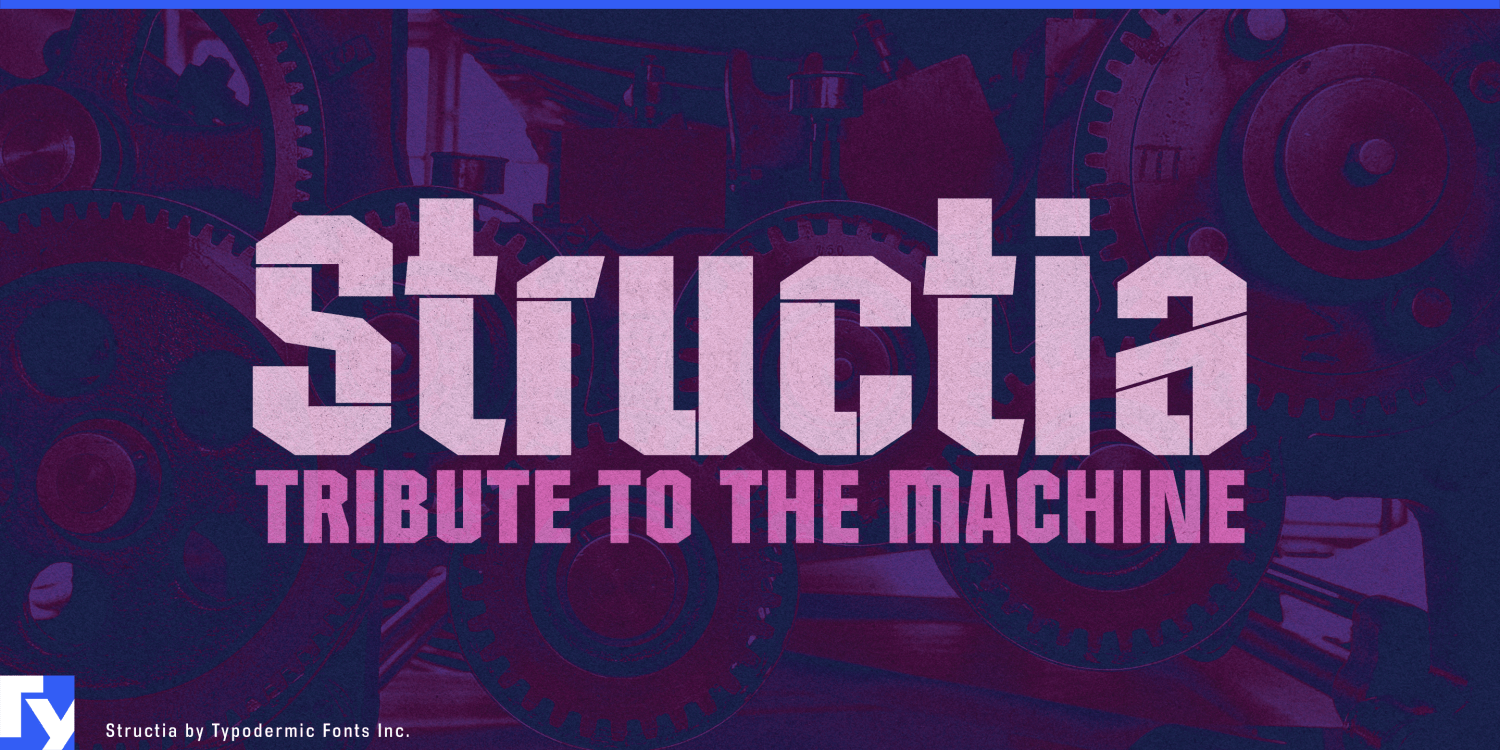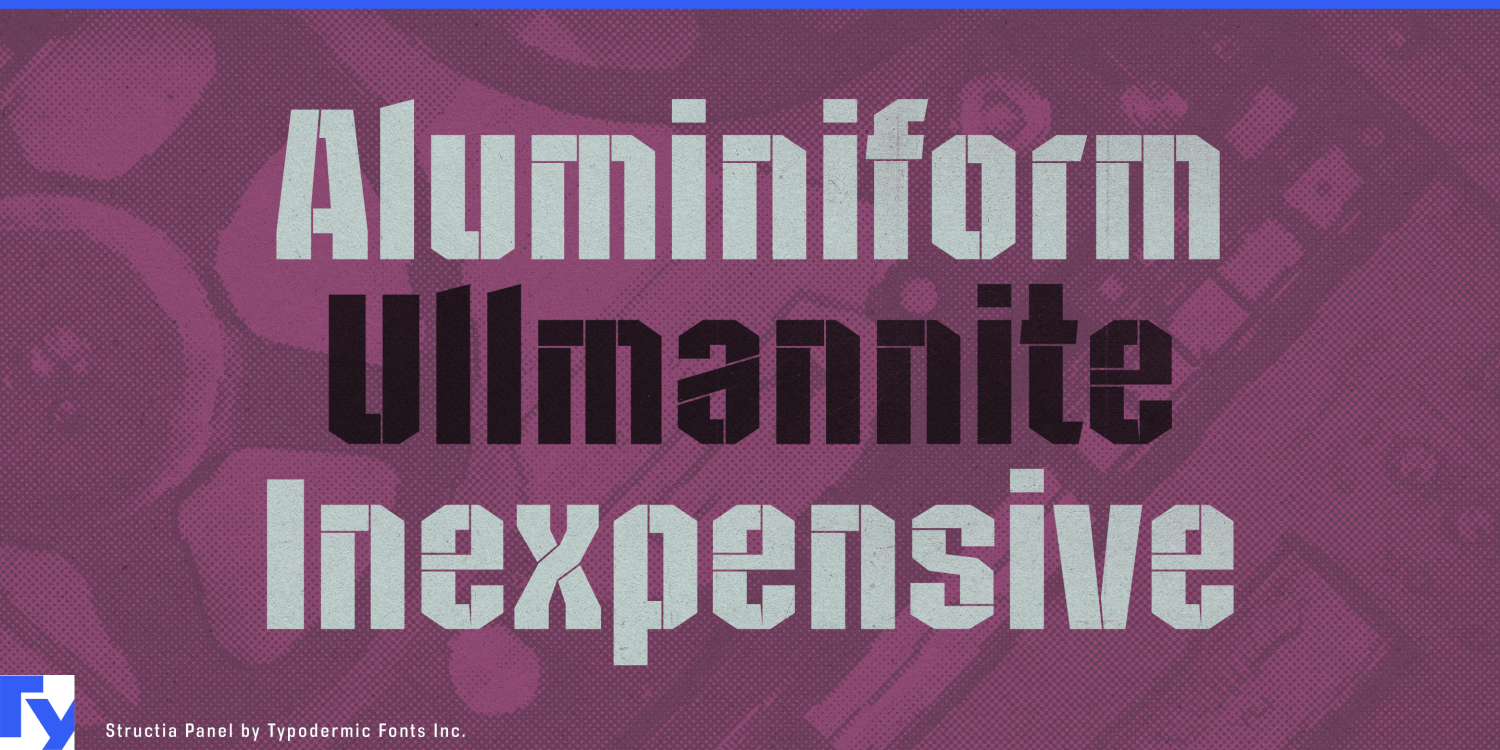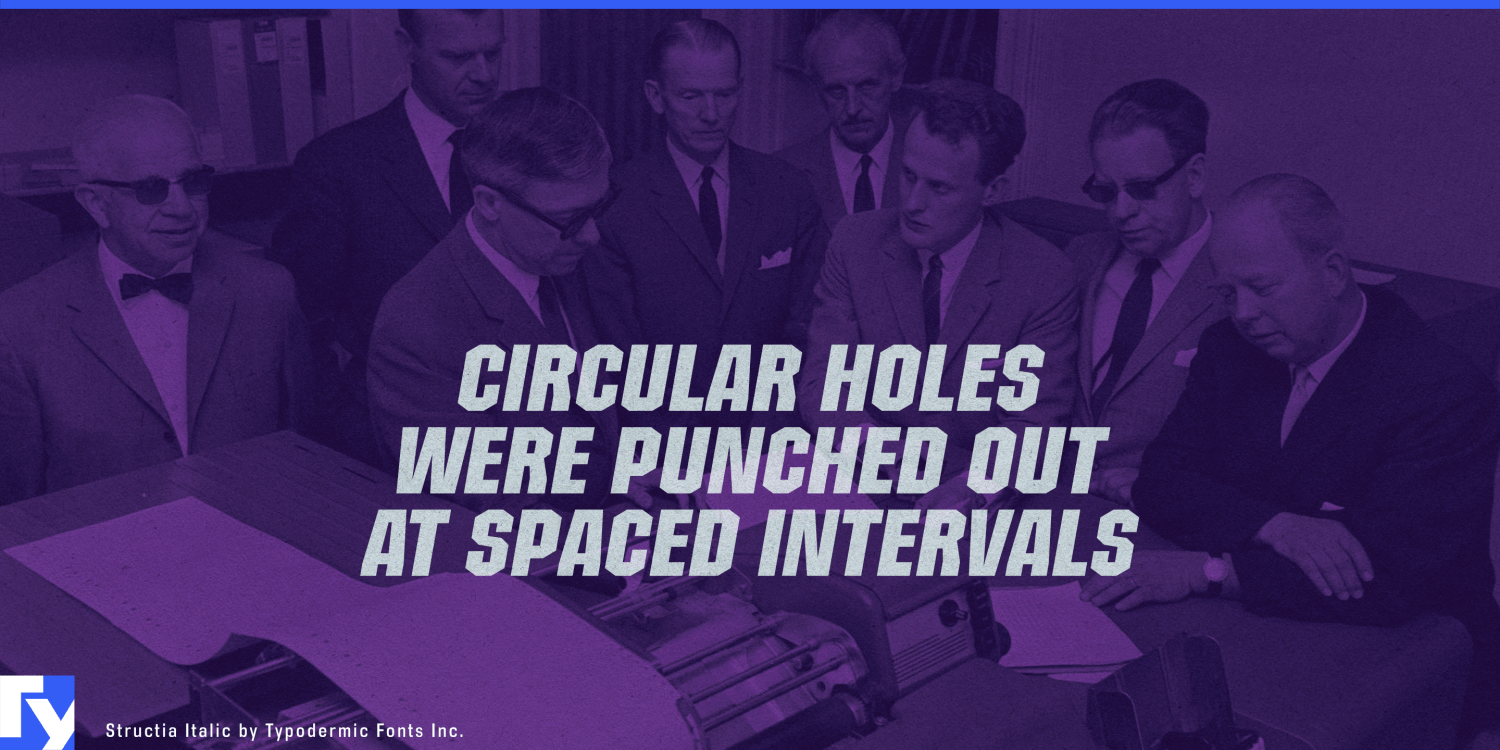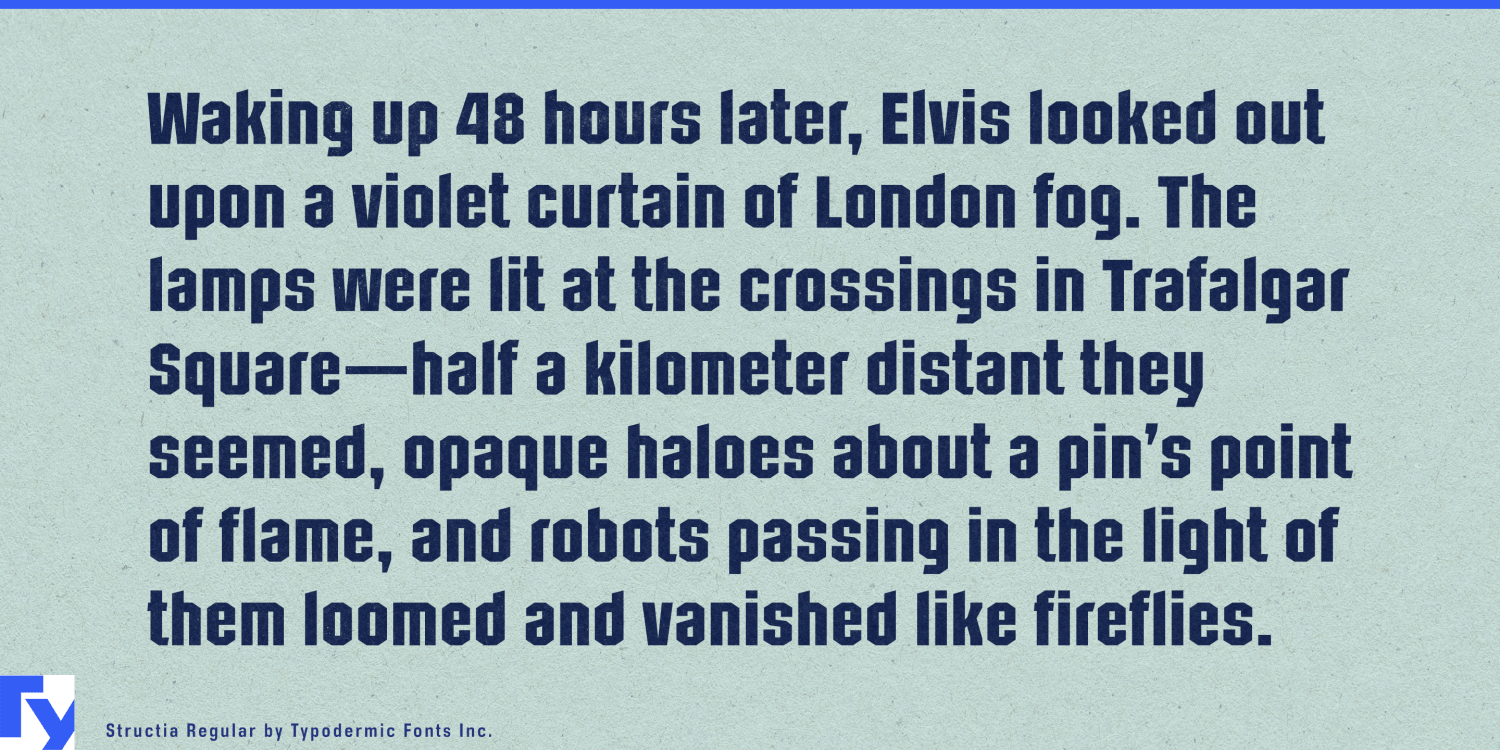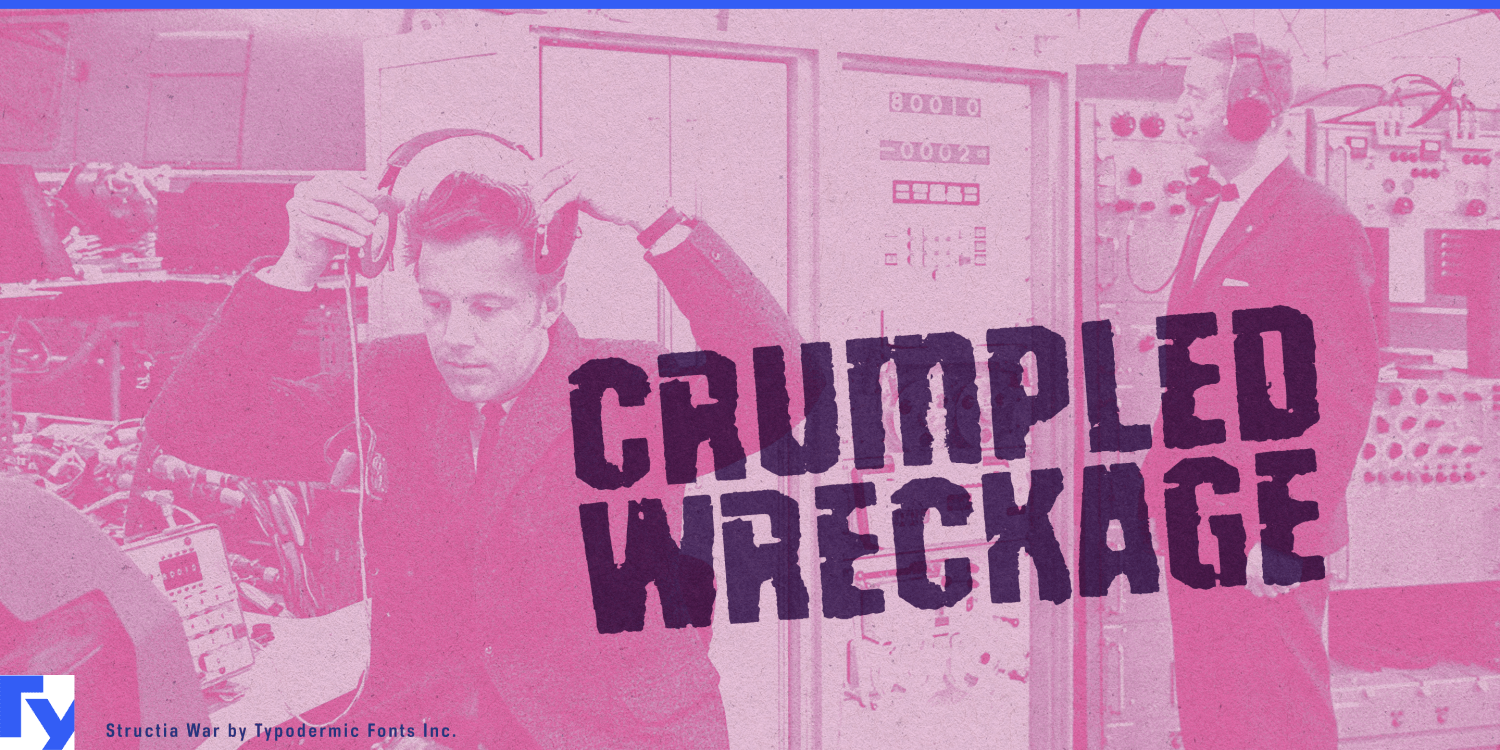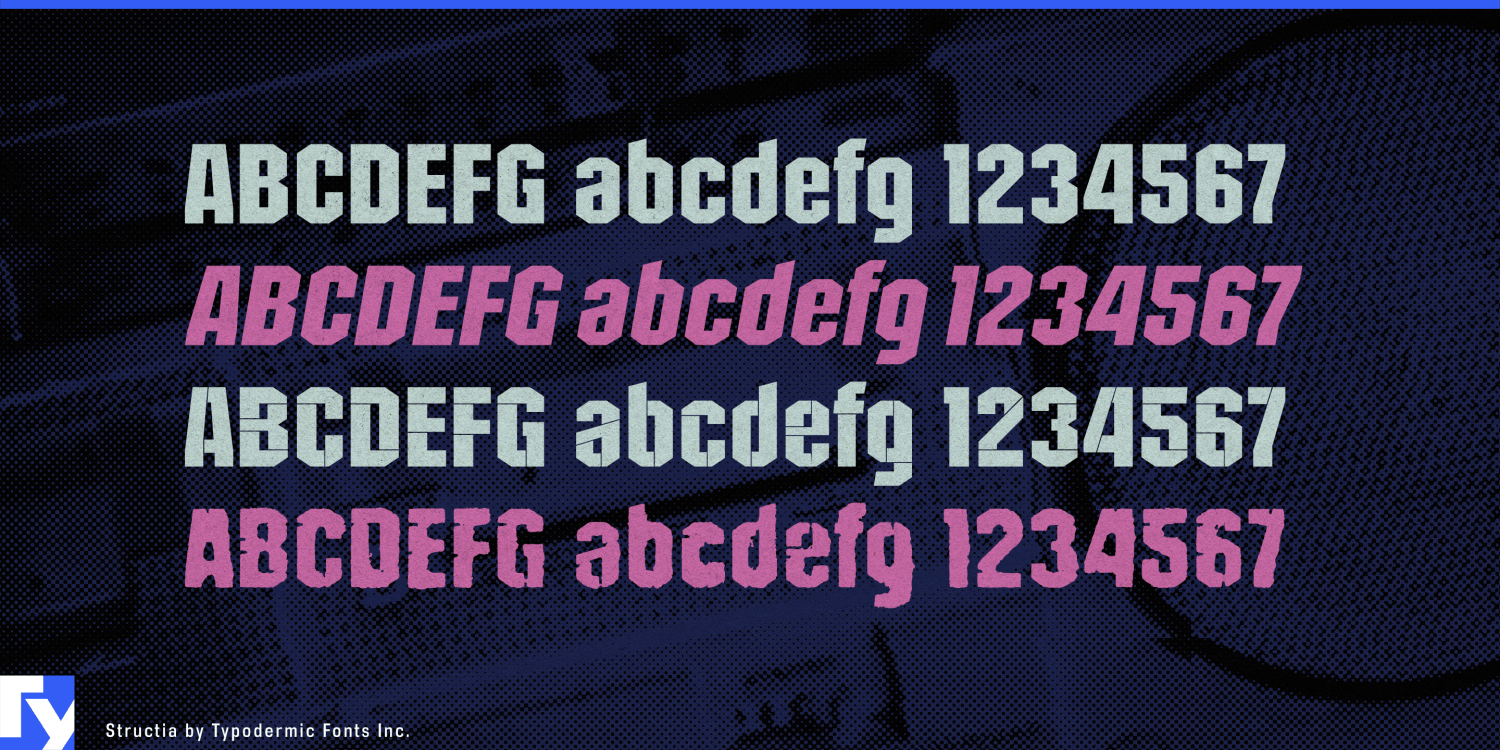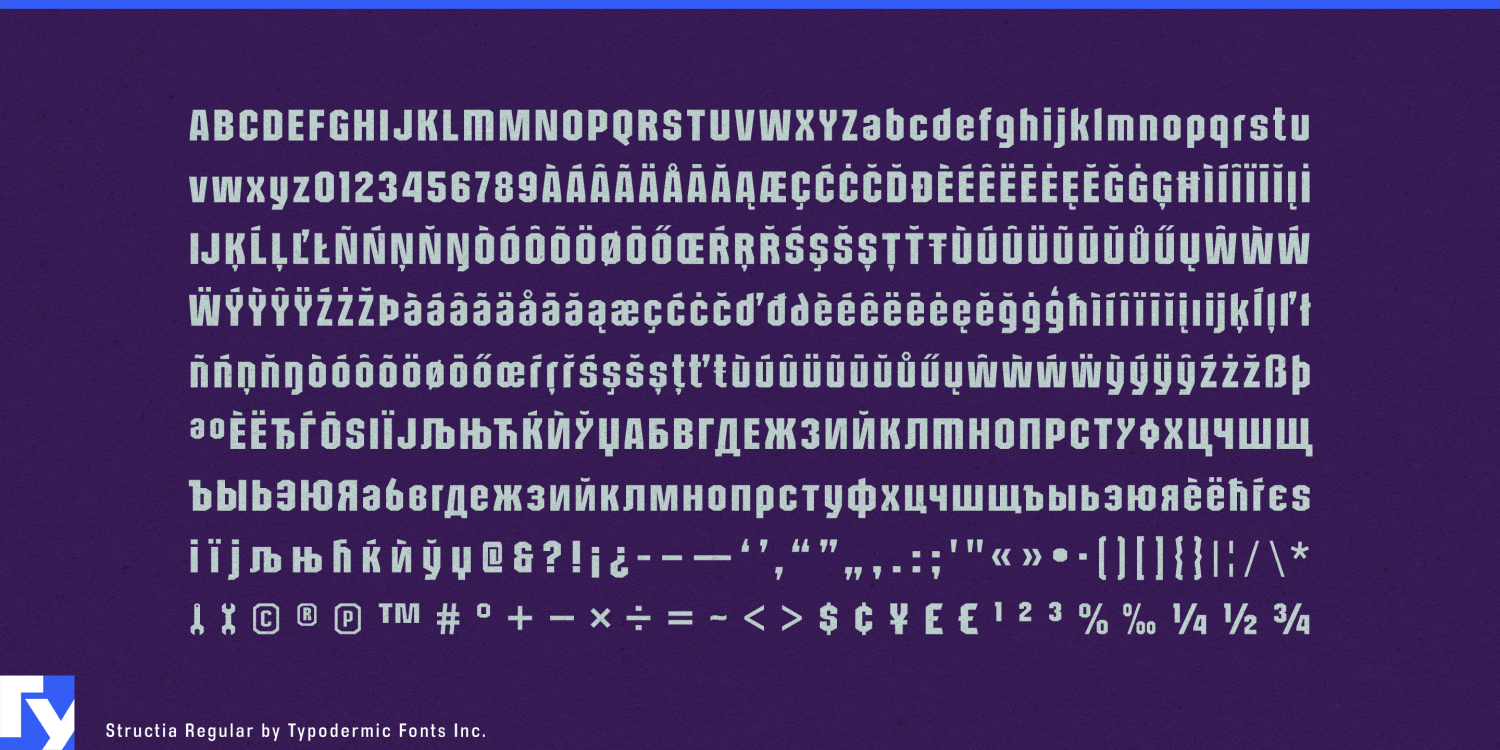
Structia
Font Family by Typodermic
Industrial display fonts often make a strong first impression and then run out of range. An octagonal all-caps face may handle a machine name or event title, but the same project can also need mixed-case headings, product families, technical graphics, cleaner supporting material, and occasional wear or damage. Structia was built for that broader job. Its narrow proportions, open counters, angular construction, and functional lowercase create a mechanical display system rather than a single industrial effect.
Structia Regular and Italic establish the core. They suit heavy equipment, industrial automation, autonomous machinery, defense technology, motorsports, professional tools, and performance equipment while remaining open enough to handle more than a handful of capitals. Use them for product-series names, machine badges, model markings, specification-book covers, dealer graphics, equipment decals, training titles, exhibition walls, and campaign headings.
Structia Panel adds fine internal divisions that suggest access panels, folded sheet metal, welded seams, protective housings, and technical component drawings. It can distinguish an advanced product line, prototype system, engineering presentation, or special edition without switching to an unrelated futuristic face. Defense robotics, unmanned aircraft, field communications, surveillance hardware, industrial control systems, and near-future vehicle technology are natural territory.
Structia War pushes the same structure toward physical wear. It fits rally-raid graphics, motocross, off-road equipment, combat-sports promotions, rugged tools, demolition equipment, fight-night campaigns, and vehicle-combat games where abrasion belongs to the subject rather than serving as generic dystopian decoration.
The three treatments can work as a progression: clean machine, engineered panel, battered machine. A manufacturer can use Regular for everyday product identification, Panel for a technically advanced line or launch campaign, and War for dramatic event graphics or limited promotional material while keeping the family resemblance intact.
Structia grew from brutalist architectural forms and the angular logic of machine-age display lettering, but it was drawn narrower and more openly than many fonts in that tradition. Larger counters, generous apertures, and a functional lowercase give it enough breathing room for headings and subheads as well as short names. That makes Structia especially useful when a project needs toughness and mechanical structure across more than one level of intensity.